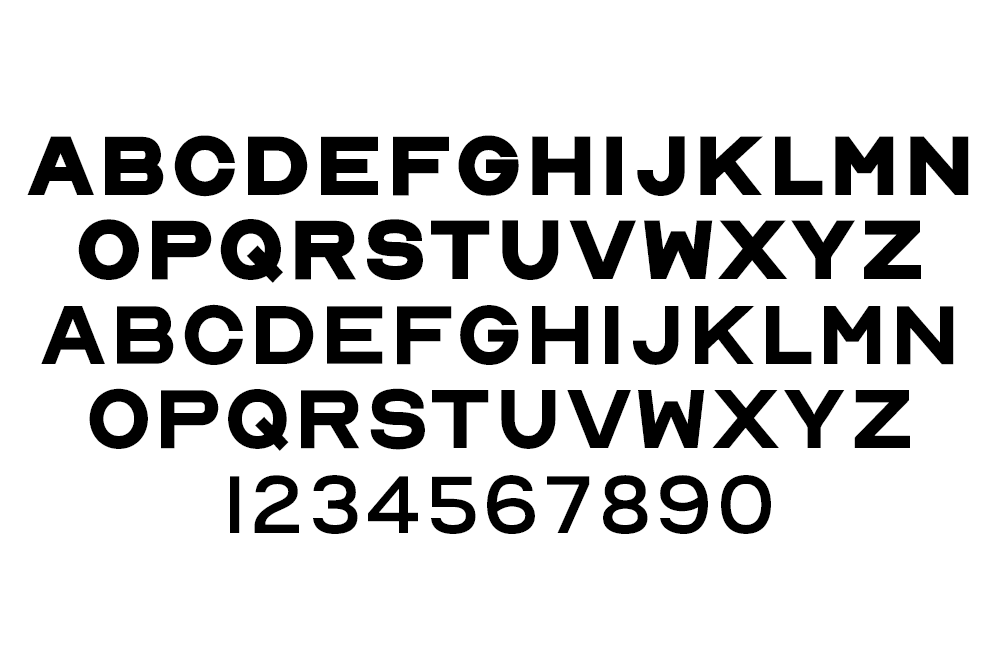
Nord – Clean and Bold All-Caps Sans Serif
Nord is a modern sans serif font with all-caps letters. It has a clean, simple style that stands out in any design. Use it for logos, headlines, posters, or brand identity projects.
Its bold form gives your message strength and clarity. Nord is perfect for minimal layouts and sleek designs.